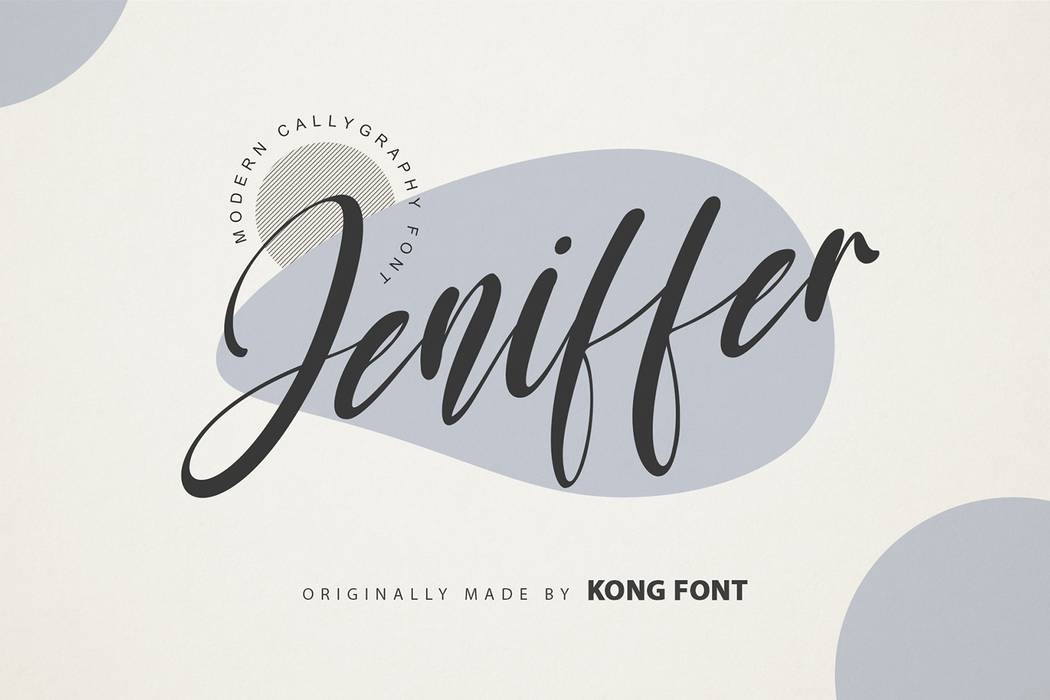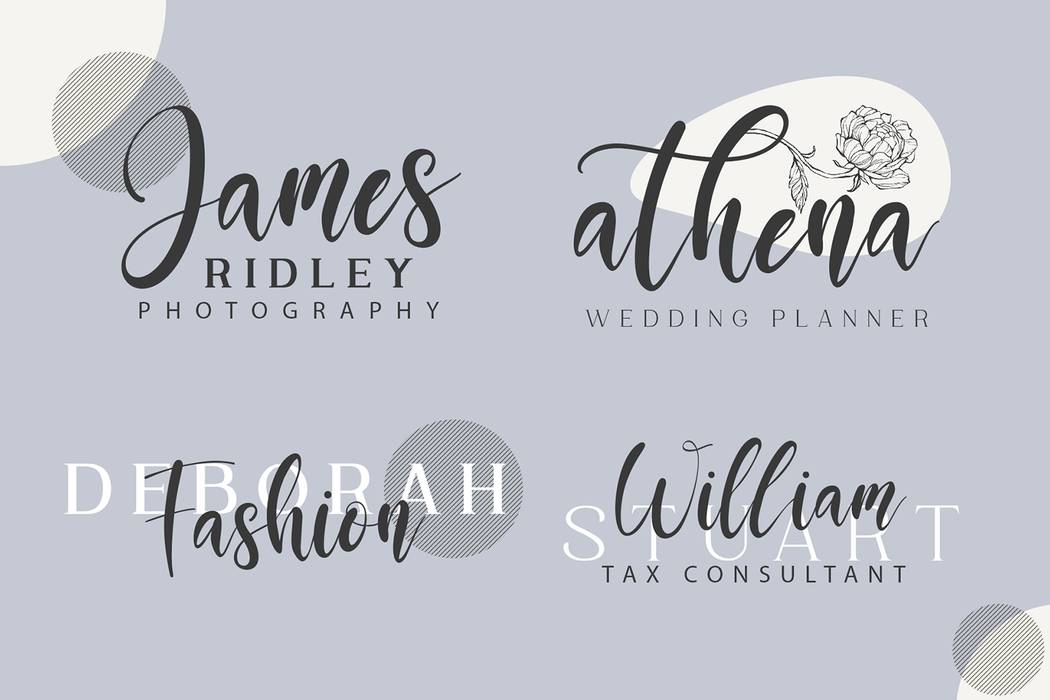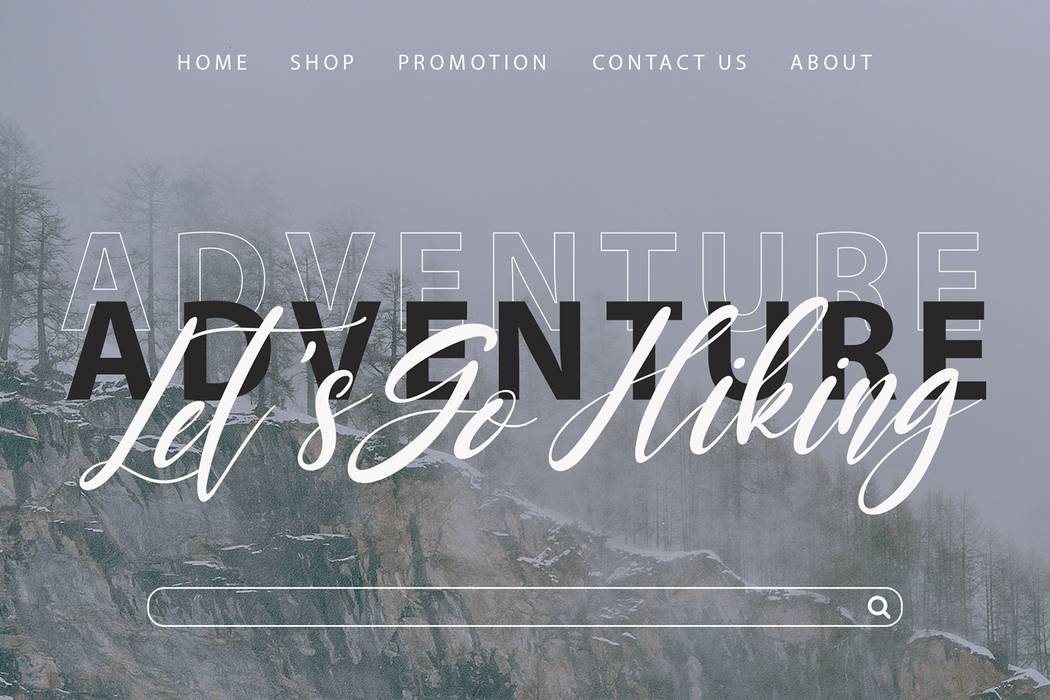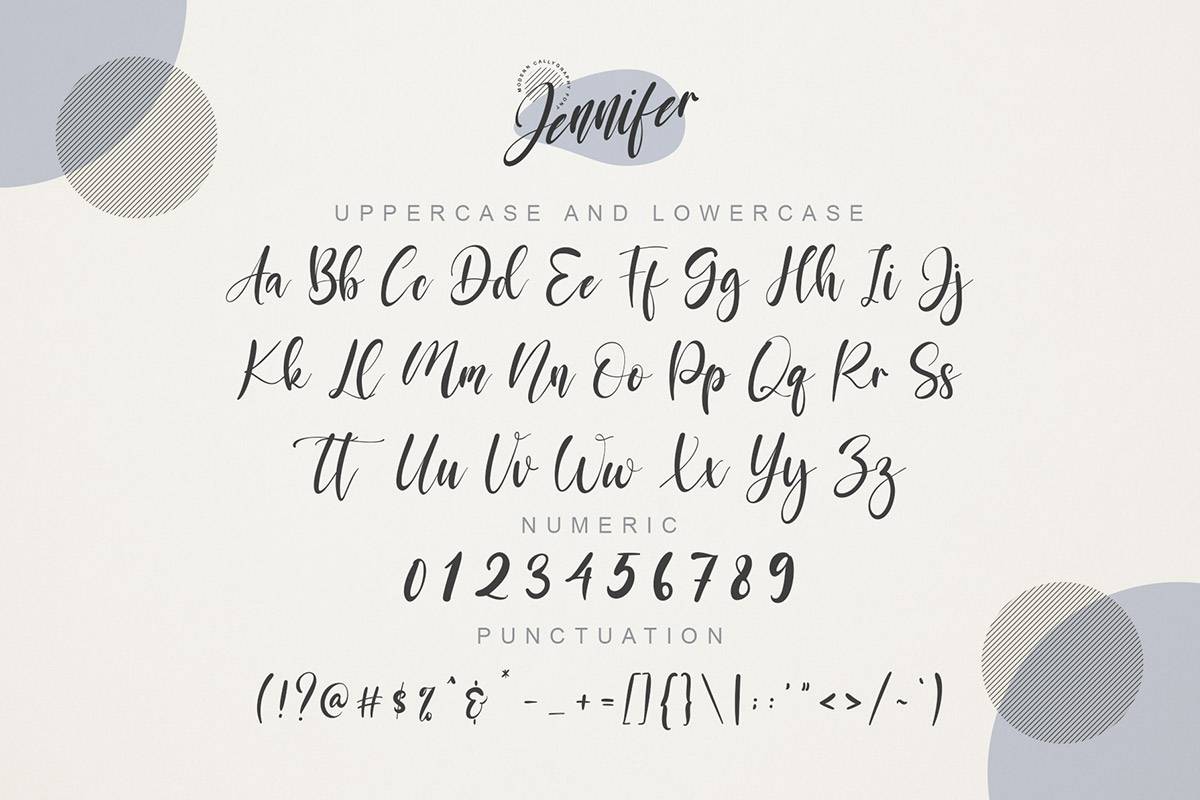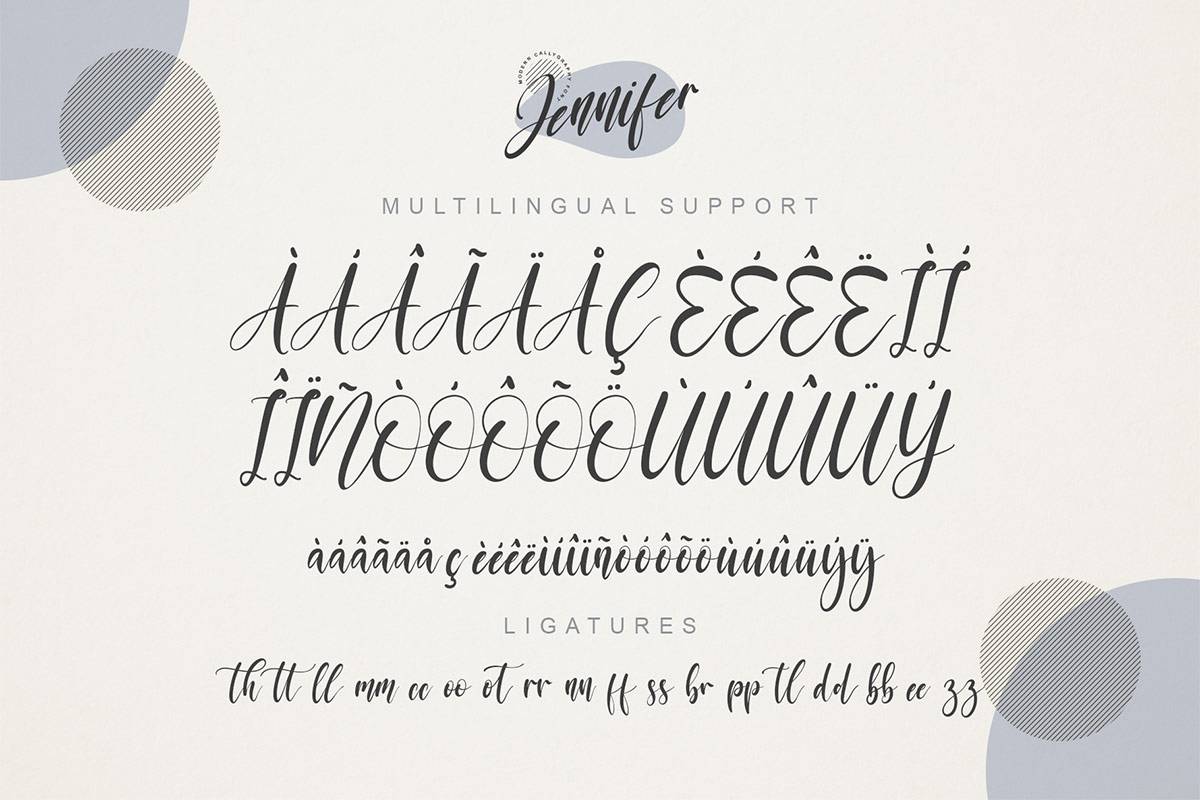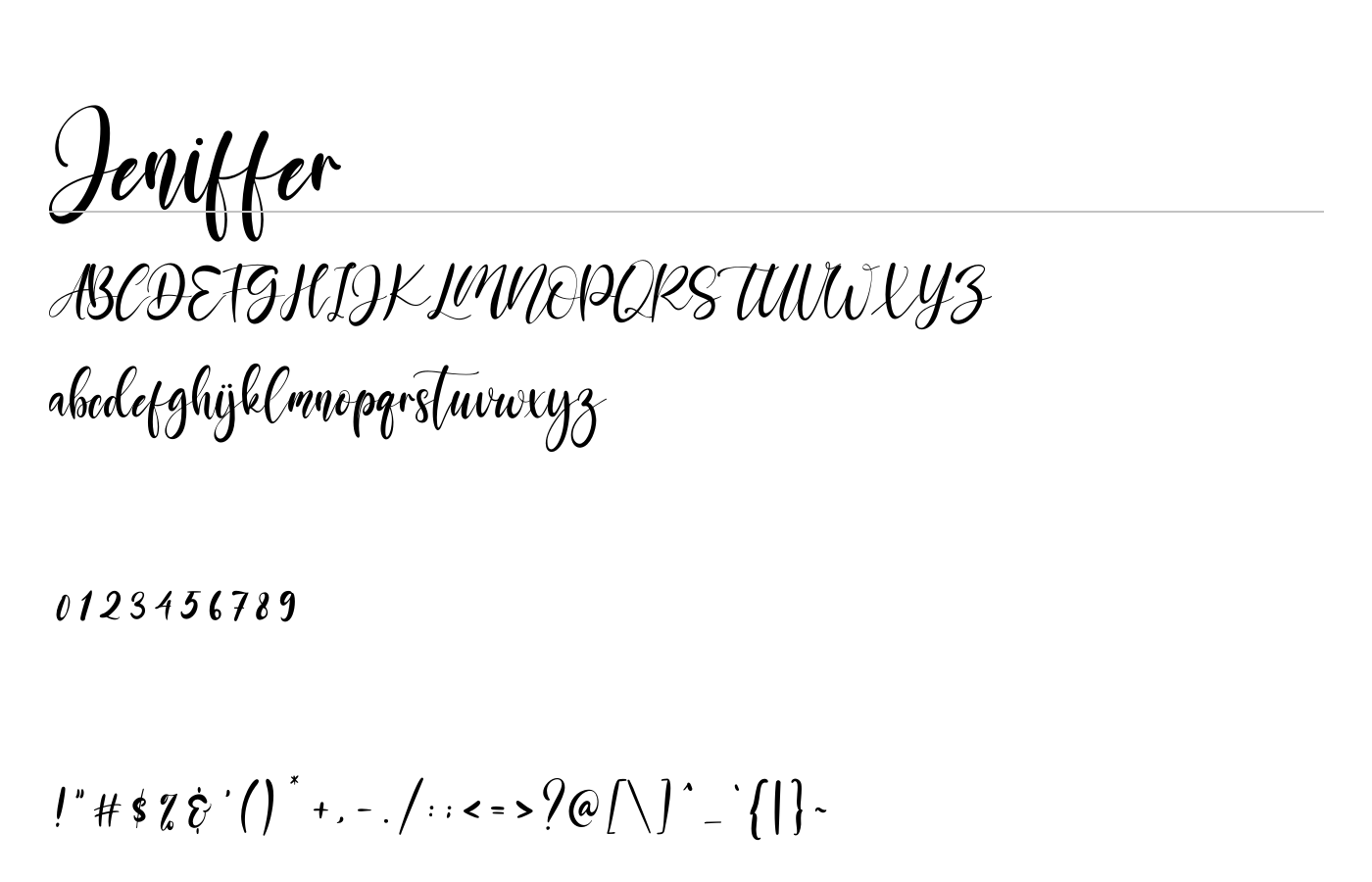
Jeniffer is a stylish script font featuring elegant, flowing letterforms with a modern calligraphic touch. Its medium weight and dynamic contrast between thick and thin strokes give it a sophisticated yet approachable feel, perfect for adding a personal and graceful flair to invitations, branding, and decorative headlines. This font shines in creative projects that seek a refined, feminine, and artistic vibe.
Jeniffer Font
About Jeniffer Font